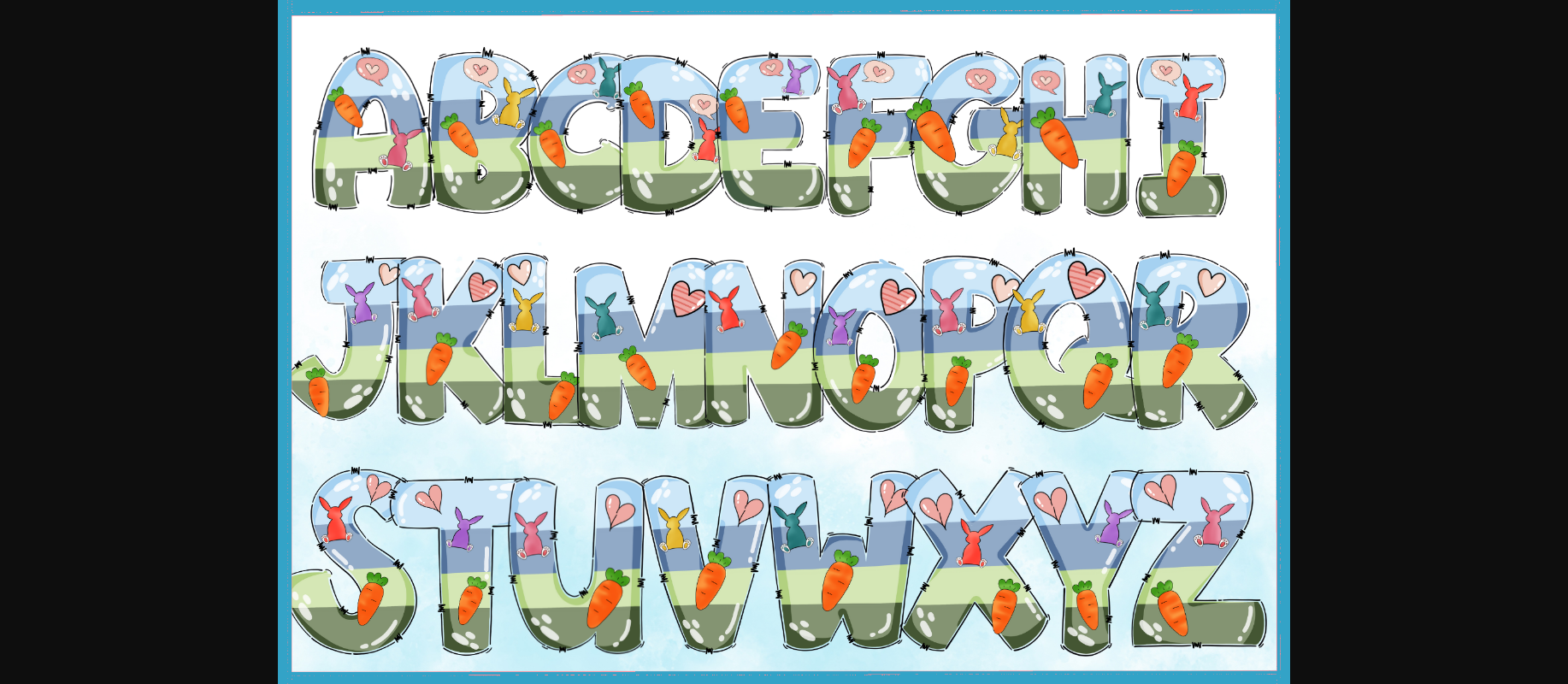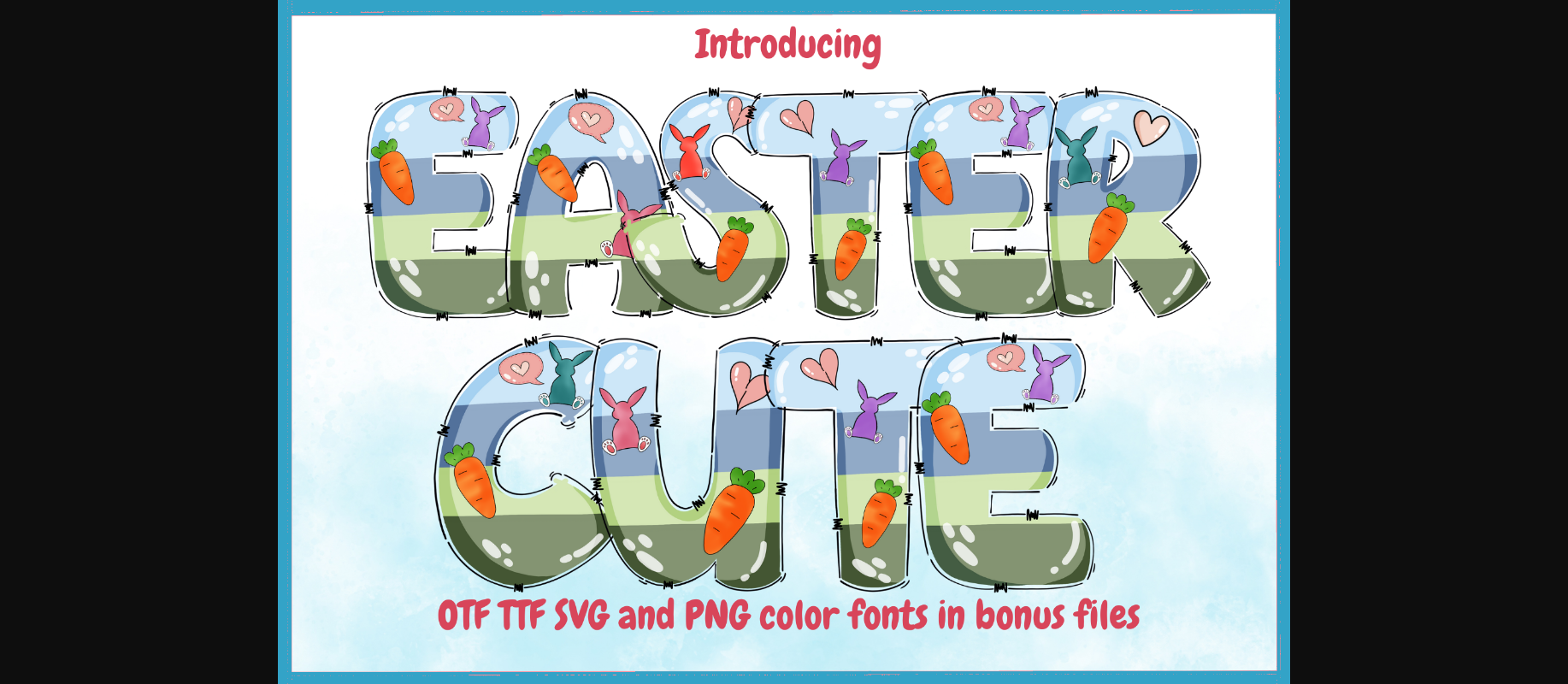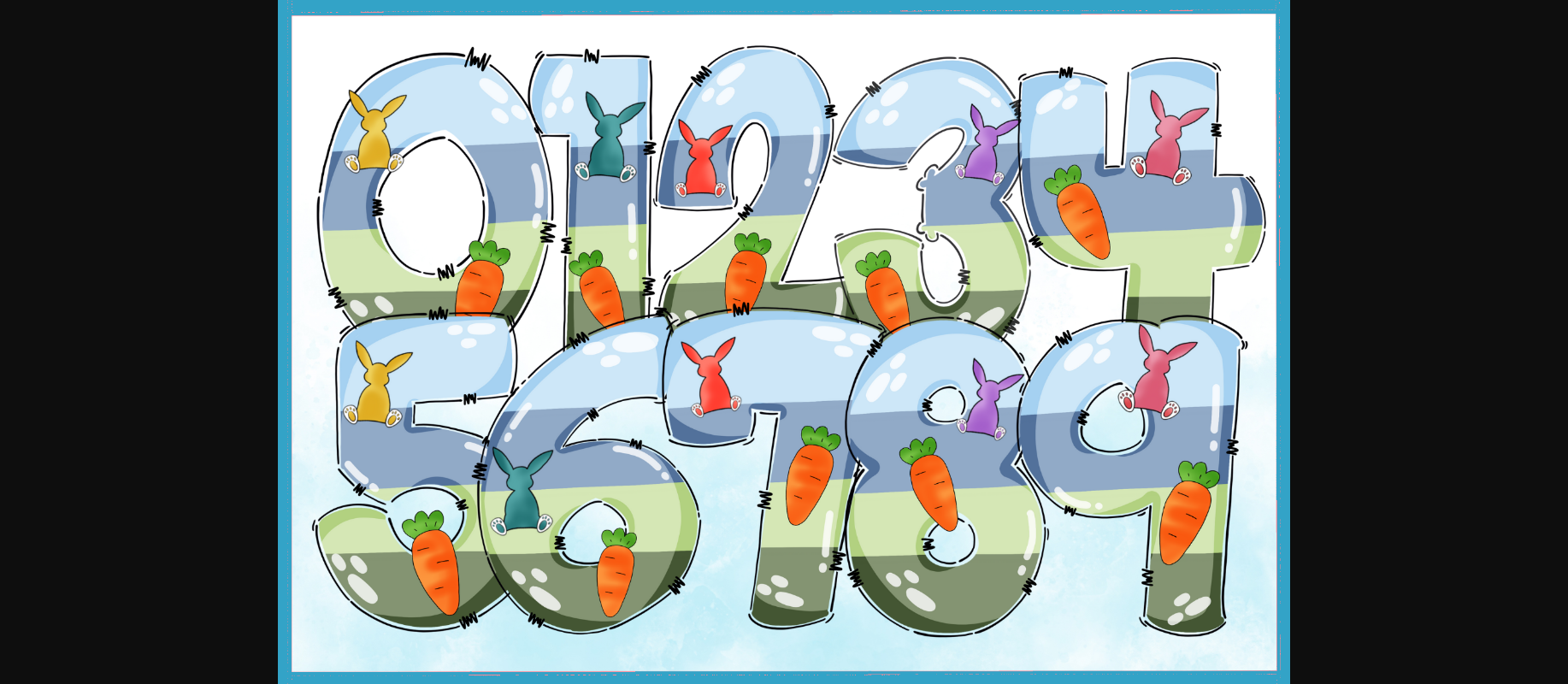
About Easter Cute Font
Easter Cute is a charming decorative font adorned with delightful Easter patterns. Perfect for adding a touch of festive cheer to your designs, this font brings joy and whimsy to your Easter-themed projects. Whether crafting greeting cards, invitations, or other Easter-inspired creations, Easter Cute adds a playful and adorable element to your text.